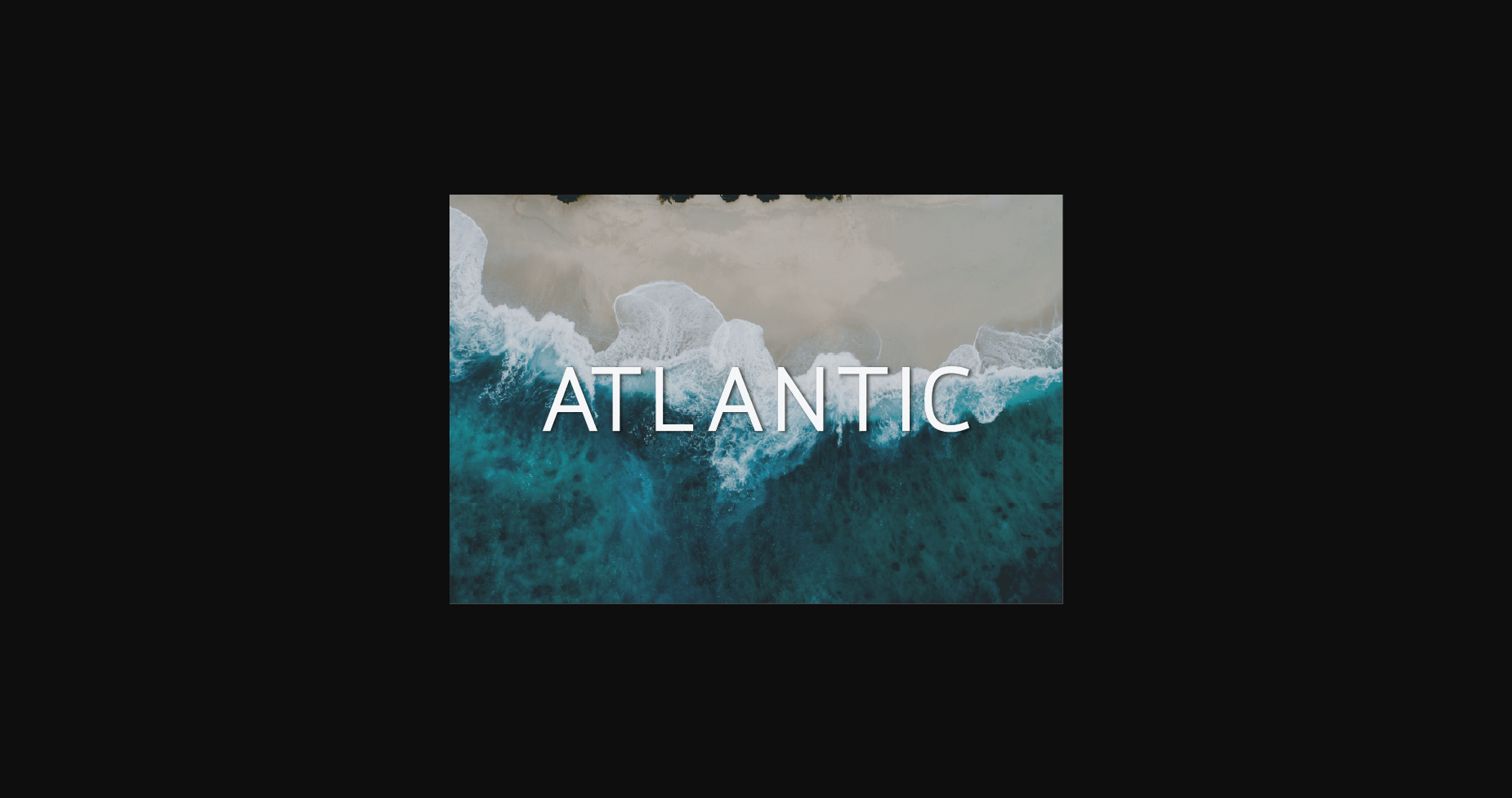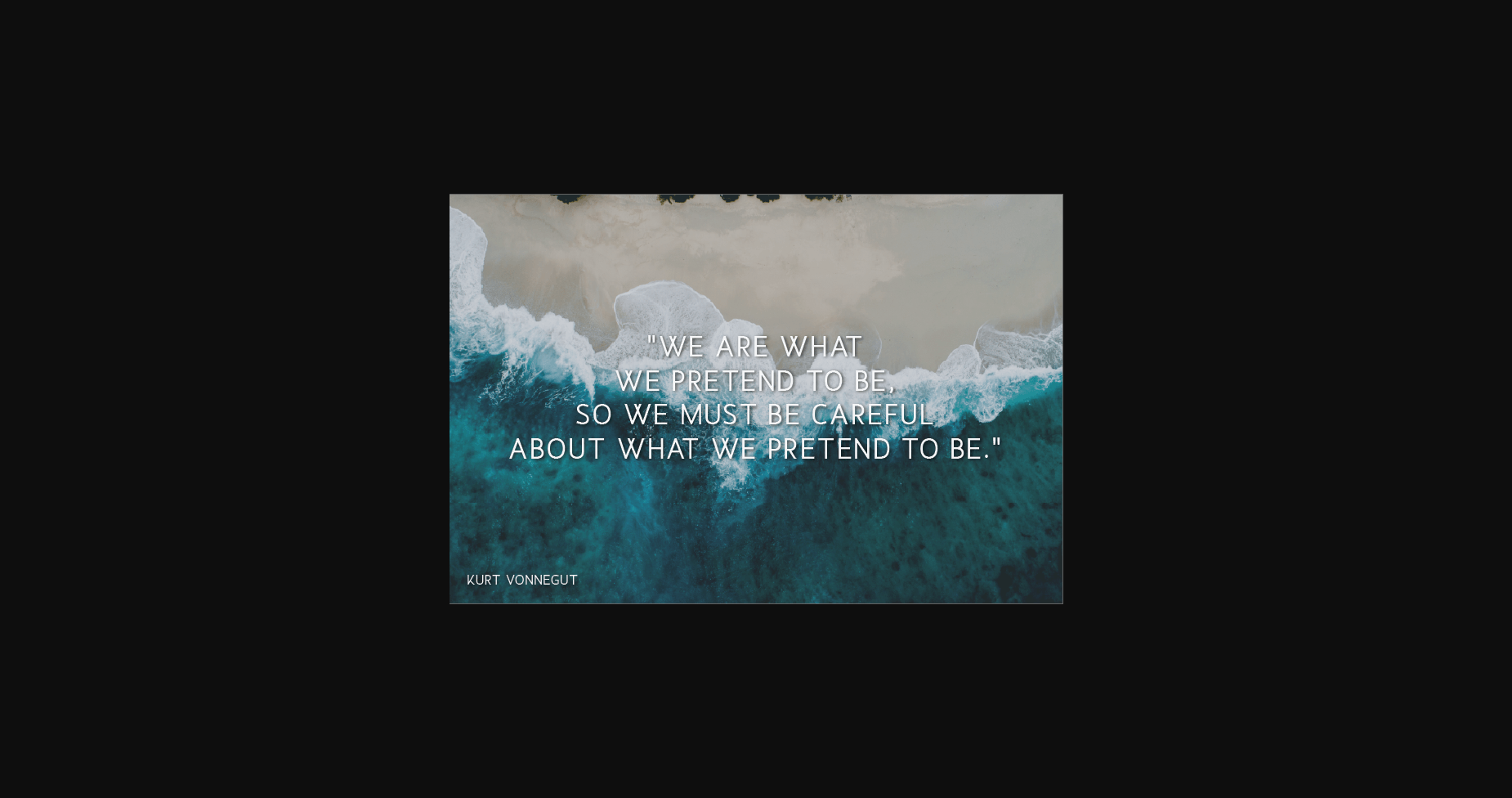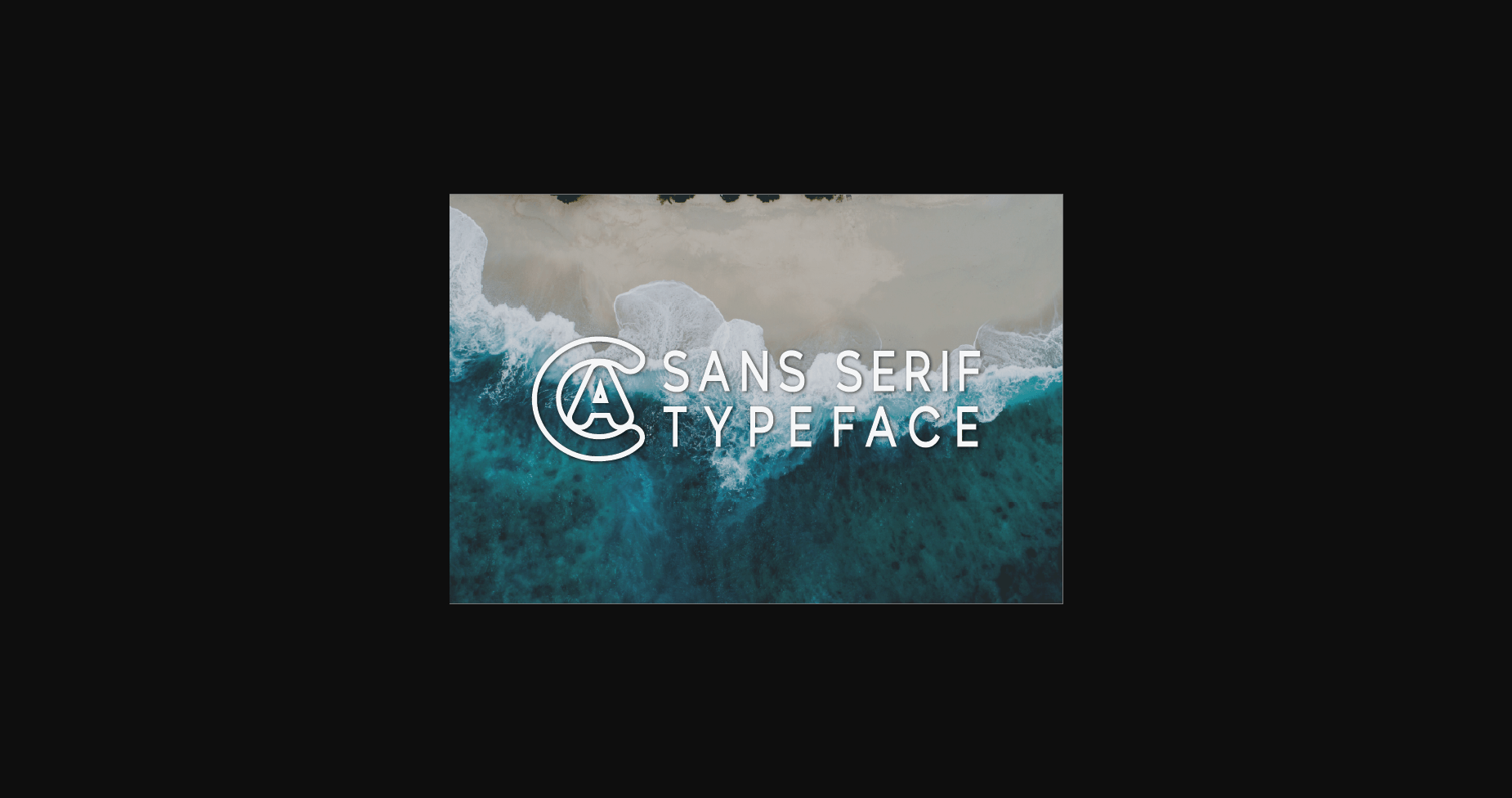
About Atlantic Font
Introducing Atlantic, a modern, classy sans serif typeface. A sans serif typeface that contains upper characters, numbers 0-9, and a range of punctuation and symbols. An extremely versatile font, perfect for logos, weddings, invitations, quotes, advertisements, print, magazines, and more!